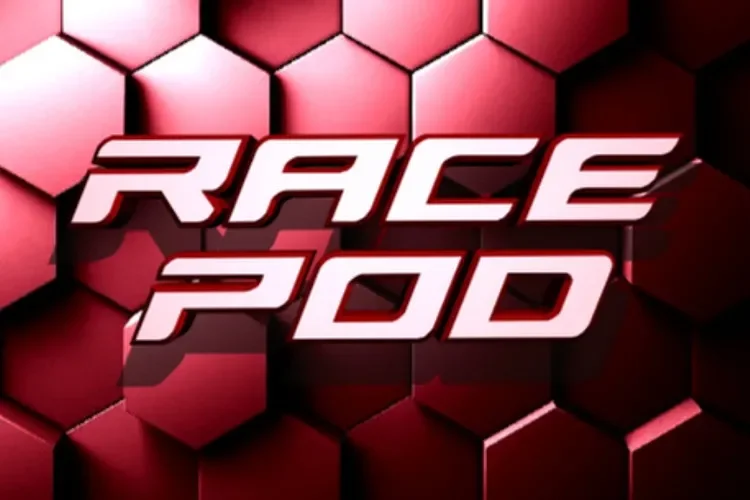
Race Pod Font is a display typeface built for high-impact headings, racing-themed designs, and sports branding. Its bold strokes improve visibility and maintain clarity in fast-paced, dynamic layouts.
The font features condensed letterforms with sharp terminals, angled edges, and uniform stroke widths. Its technical and energetic design ensures readability in posters, digital graphics, and logos. Alternate characters and multiple weights enhance versatility for creative projects.